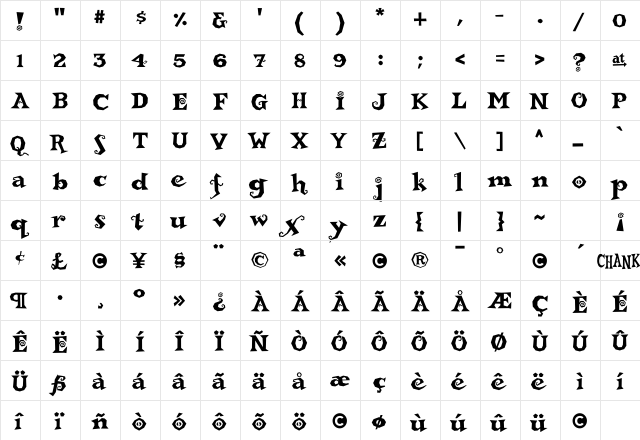
Buckethead Medium
Design Context for Buckethead Typeface
Buckethead is a composed and adaptable typeface that performs quietly and consistently across a wide range of design contexts.